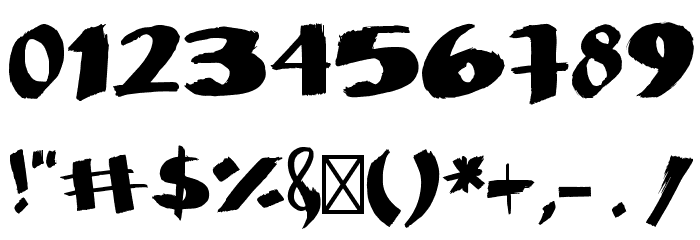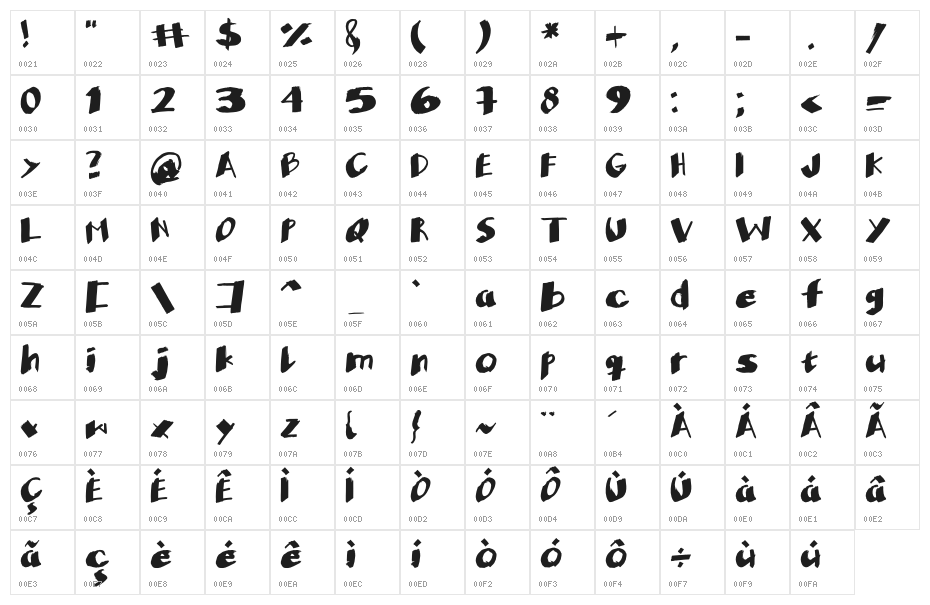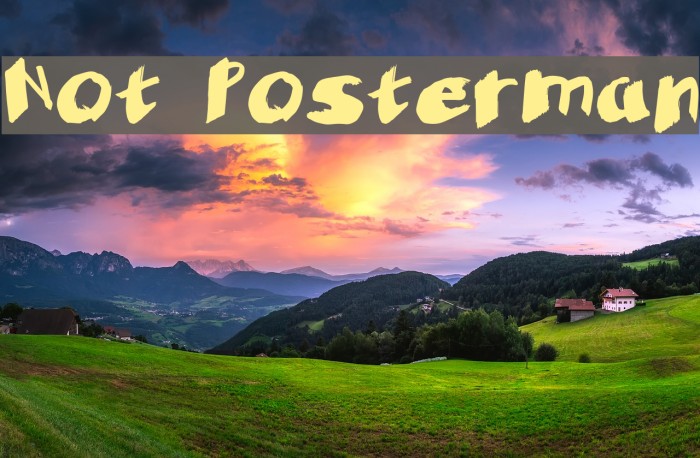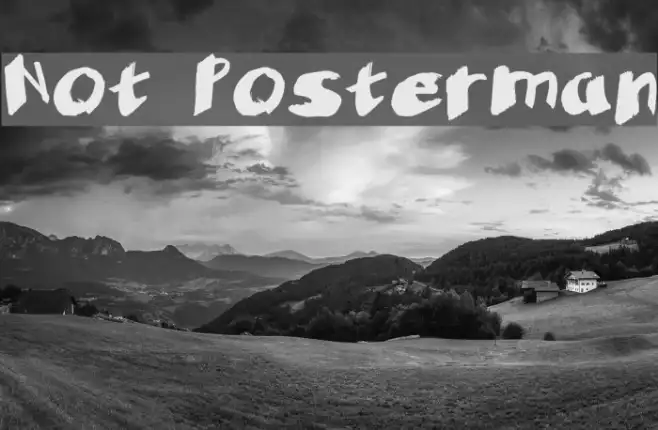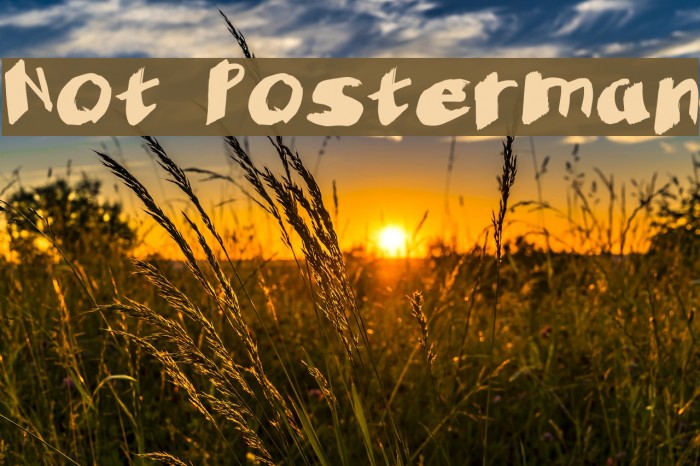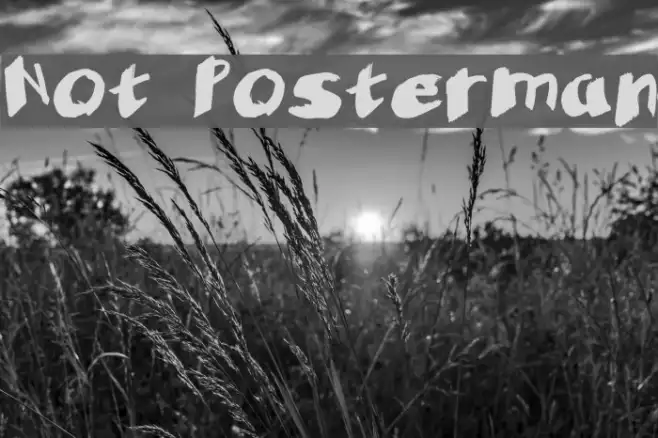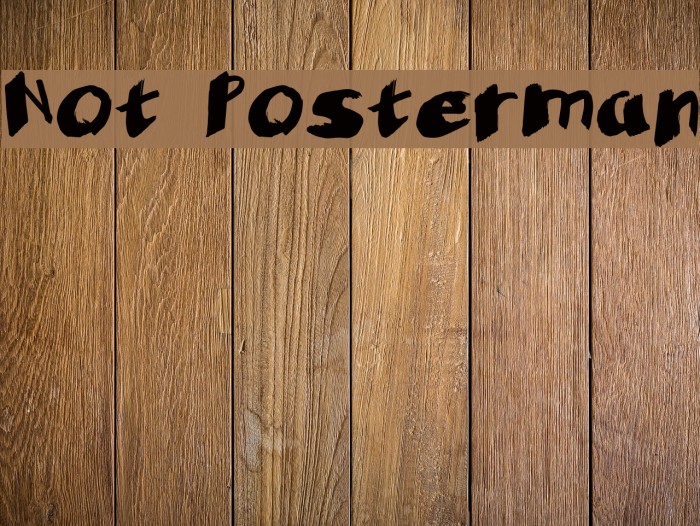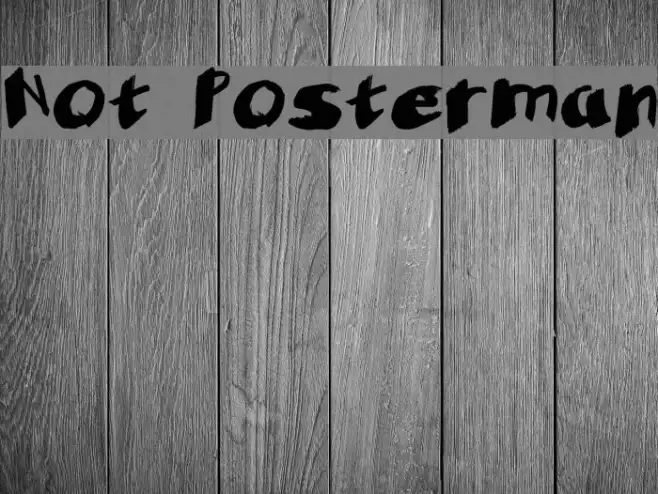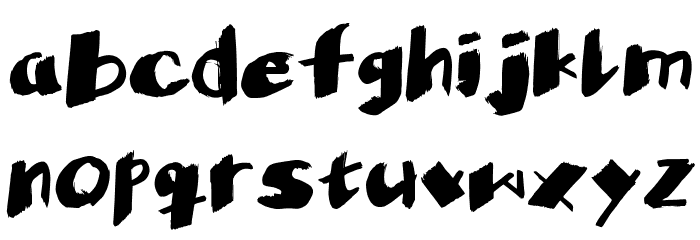
Not Posterman Font
Not Posterman Description
This font features a bold and expressive style, reminiscent of hand-painted signage. The characters are dynamic and slightly irregular, giving a sense of movement and energy. The uppercase letters are robust and impactful, while the lowercase letters maintain a playful and artistic flair. Numbers and special characters follow the same lively aesthetic, making the font suitable for attention-grabbing designs. The brush-like strokes and uneven edges contribute to its unique and artistic appearance.
| Overall Style | Artistic, Expressive |
| Proposed Projects | Ideal for posters, headlines, branding, and any project requiring a bold, artistic touch. |